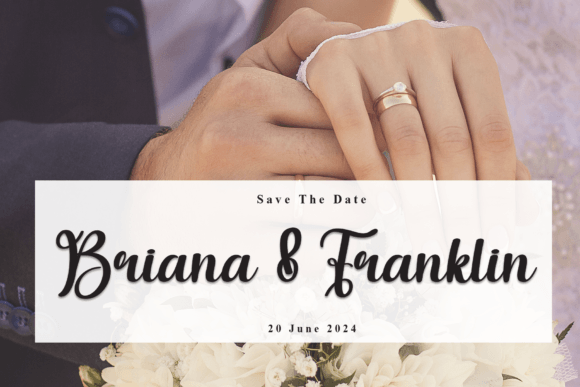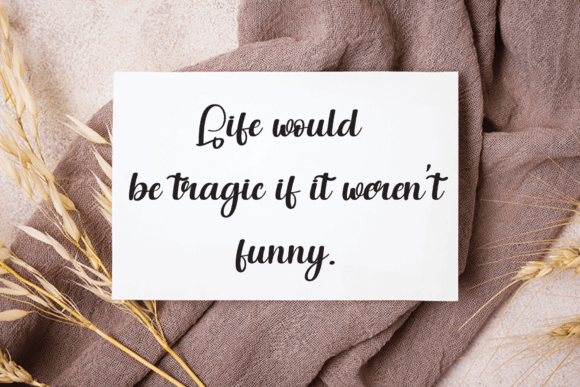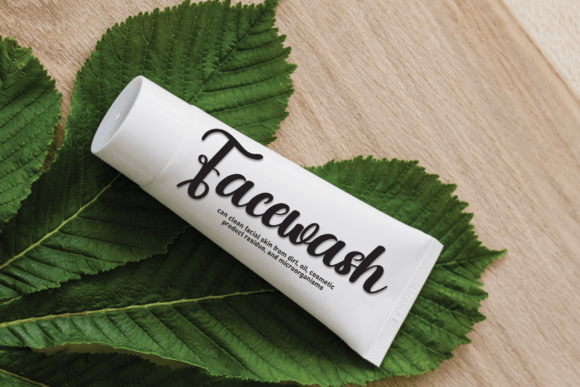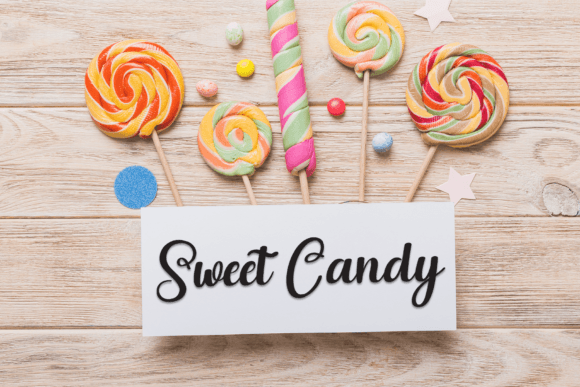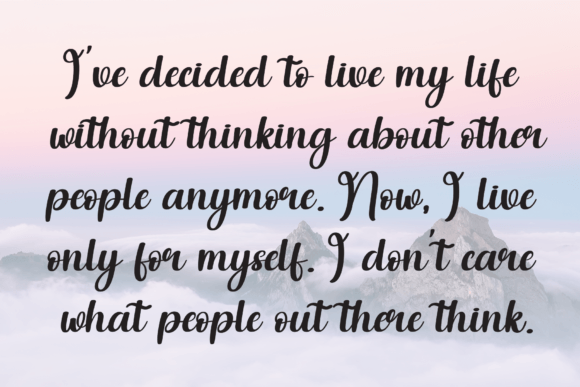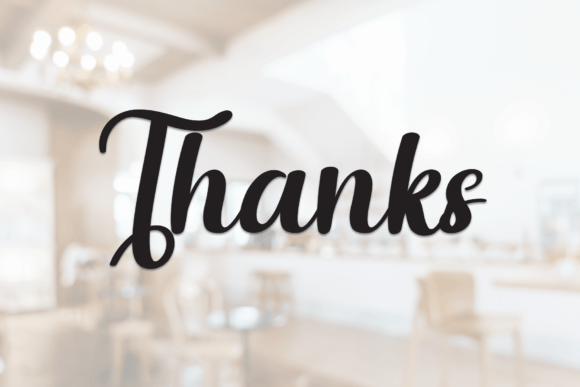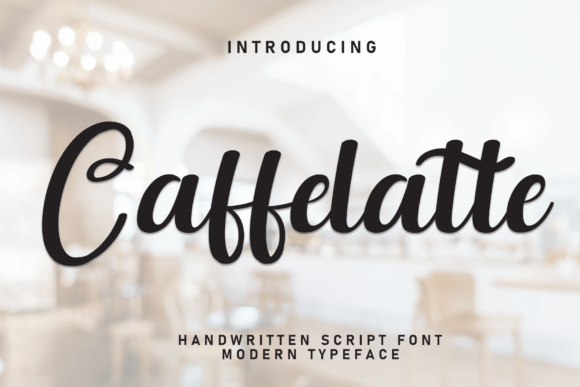
Caffelatte Font: The Sweet and Friendly Handwritten Font for Your Creative Projects
Are you looking for a font that can add a touch of sweetness and friendliness to your designs? Look no further than the Caffelatte font! This beautiful handwritten font is perfect for creating wedding invitations, cards, and other designs that require a fun and playful touch.
What is Caffelatte Font?
Caffelatte is a sweet and friendly handwritten font that is designed to bring a smile to your face. Its cute and fun appearance makes it ideal for a wide range of creative projects, from wedding invitations and cards to posters and social media graphics.
Key Features of Caffelatte Font
- Handwritten appearance: Caffelatte font has a beautiful handwritten appearance that gives it a personal and unique touch.
- Sweet and friendly: The font’s sweet and friendly appearance makes it perfect for designs that require a playful and approachable tone.
- Cute and fun: Caffelatte font is designed to be cute and fun, making it ideal for designs that require a touch of whimsy and playfulness.
- Versatile: This font is versatile and can be used for a wide range of creative projects, from wedding invitations and cards to posters and social media graphics.
Use Cases for Caffelatte Font
Caffelatte font is perfect for a wide range of creative projects, including:
- Wedding invitations: The font’s sweet and friendly appearance makes it perfect for wedding invitations, adding a touch of romance and whimsy to your designs.
- Cards: Caffelatte font is ideal for creating cards for special occasions, such as birthdays, anniversaries, and holidays.
- Posters: The font’s cute and fun appearance makes it perfect for creating posters for events, promotions, and products.
- Social media graphics: Caffelatte font can be used to create social media graphics that require a playful and approachable tone.
Why Choose Caffelatte Font?
There are many reasons why you should choose Caffelatte font for your creative projects. Here are a few:
- Unique and personal: Caffelatte font has a unique and personal appearance that will set your designs apart from the rest.
- Easy to read: The font is easy to read, making it perfect for designs that require a clear and concise message.
- Customizable: Caffelatte font can be customized to fit your design needs, making it perfect for a wide range of creative projects.
Tips for Using Caffelatte Font
Here are a few tips for using Caffelatte font in your creative projects:
- Use it for headings: Caffelatte font is perfect for headings and titles, adding a touch of sweetness and friendliness to your designs.
- Pair it with other fonts: The font can be paired with other fonts to create a unique and visually appealing design.
- Experiment with colors: Caffelatte font can be used with a wide range of colors, so don’t be afraid to experiment and find the perfect color scheme for your design.
Caffelatte font is a sweet and friendly handwritten font that is perfect for adding a touch of whimsy and playfulness to your designs. Its cute and fun appearance makes it ideal for a wide range of creative projects, from wedding invitations and cards to posters and social media graphics. With its unique and personal appearance, ease of readability, and customizability, Caffelatte font is the perfect choice for designers and crafters looking to add a touch of sweetness and friendliness to their designs.